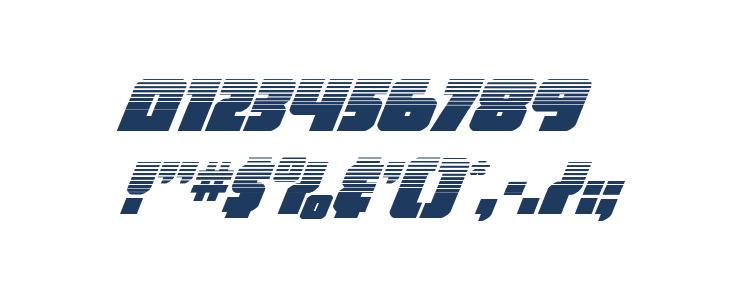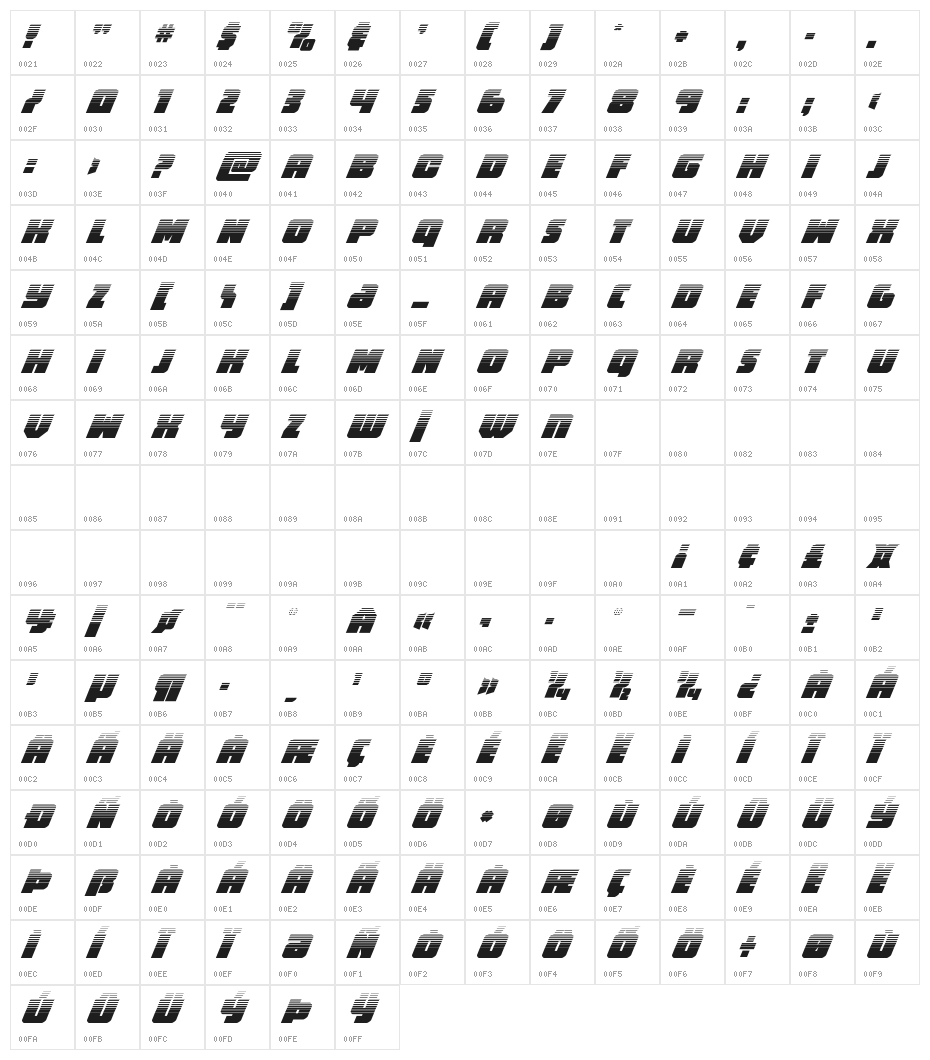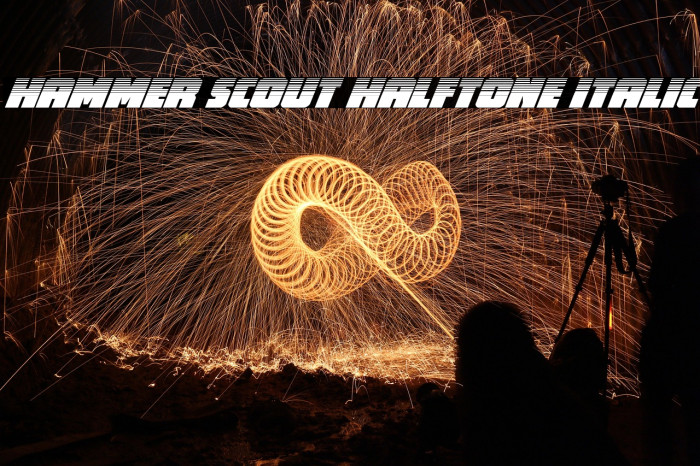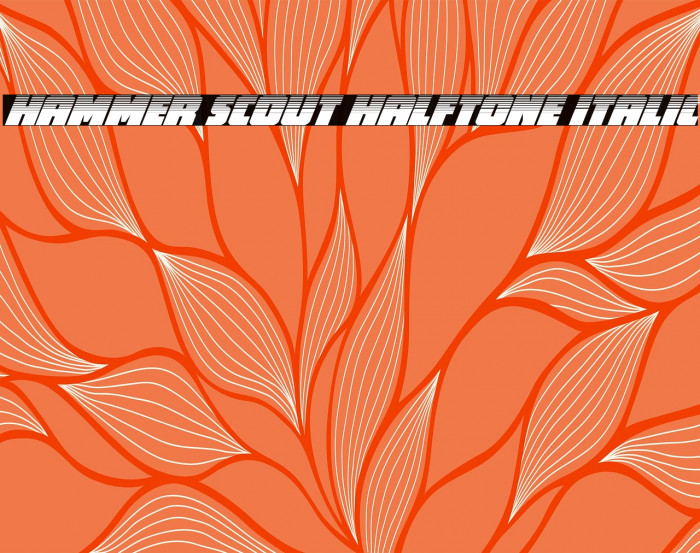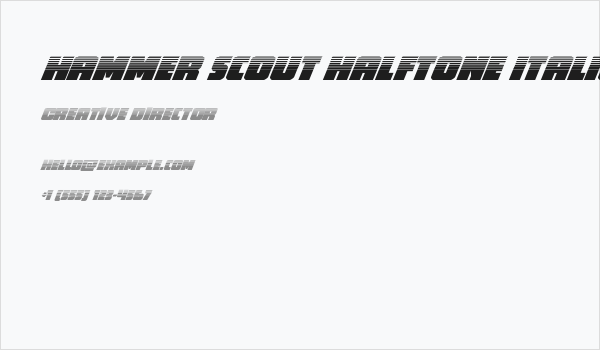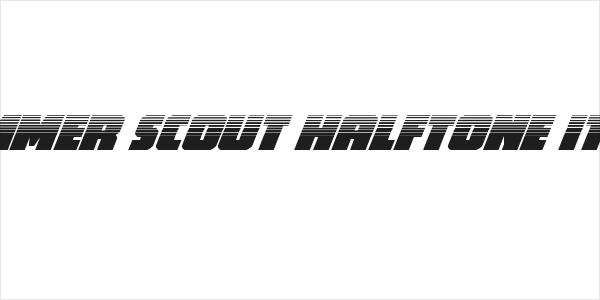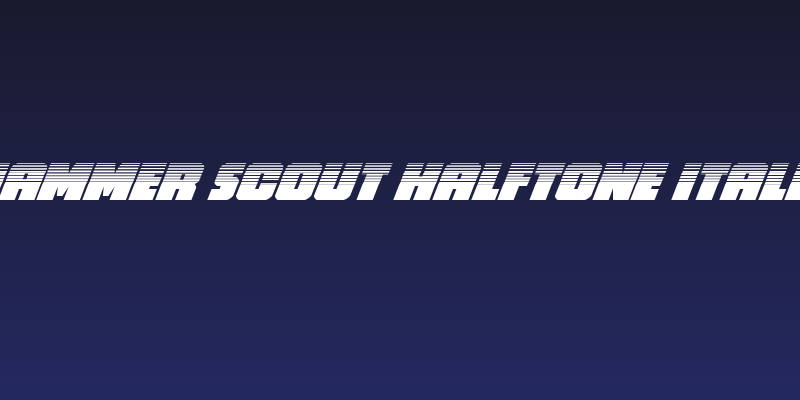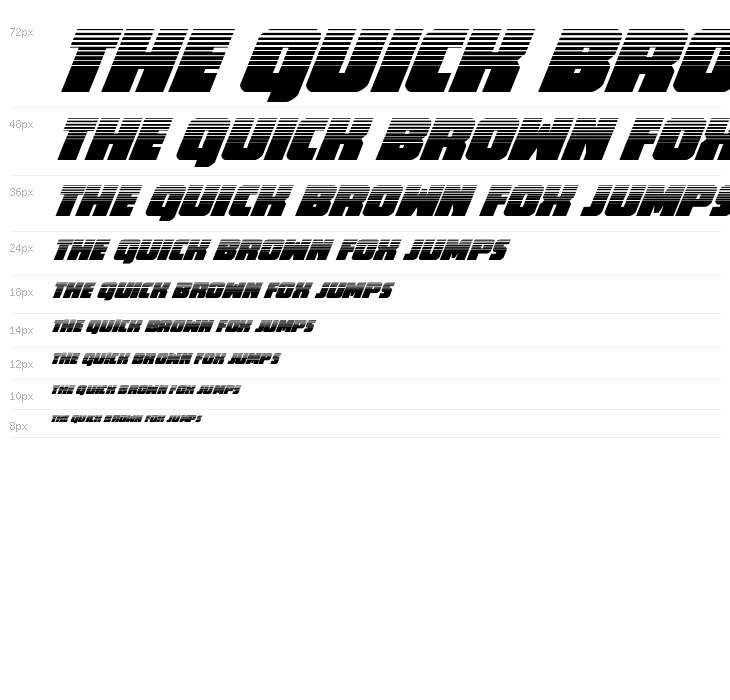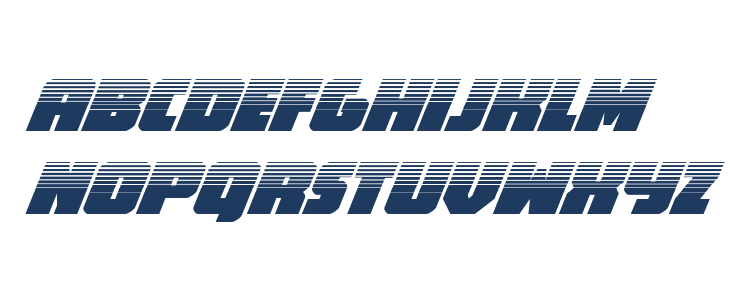
Hammer Scout Halftone Italic Font
Hammer Scout Halftone Italic Description
This font features a bold, italicized style with a distinctive halftone effect that gives it a dynamic, futuristic appearance. The characters are wide and blocky, with horizontal lines running through the upper portions, creating a sense of motion and speed. The design is highly stylized, making it ideal for attention-grabbing headlines or logos. The uppercase and lowercase letters maintain a consistent width, enhancing the uniformity of the typeface. The numbers and special characters follow the same design principles, ensuring a cohesive look across all elements.
| Overall Style | Futuristic, Dynamic |
| Proposed Projects | Ideal for sports branding, tech-related logos, futuristic posters, and dynamic headlines. |